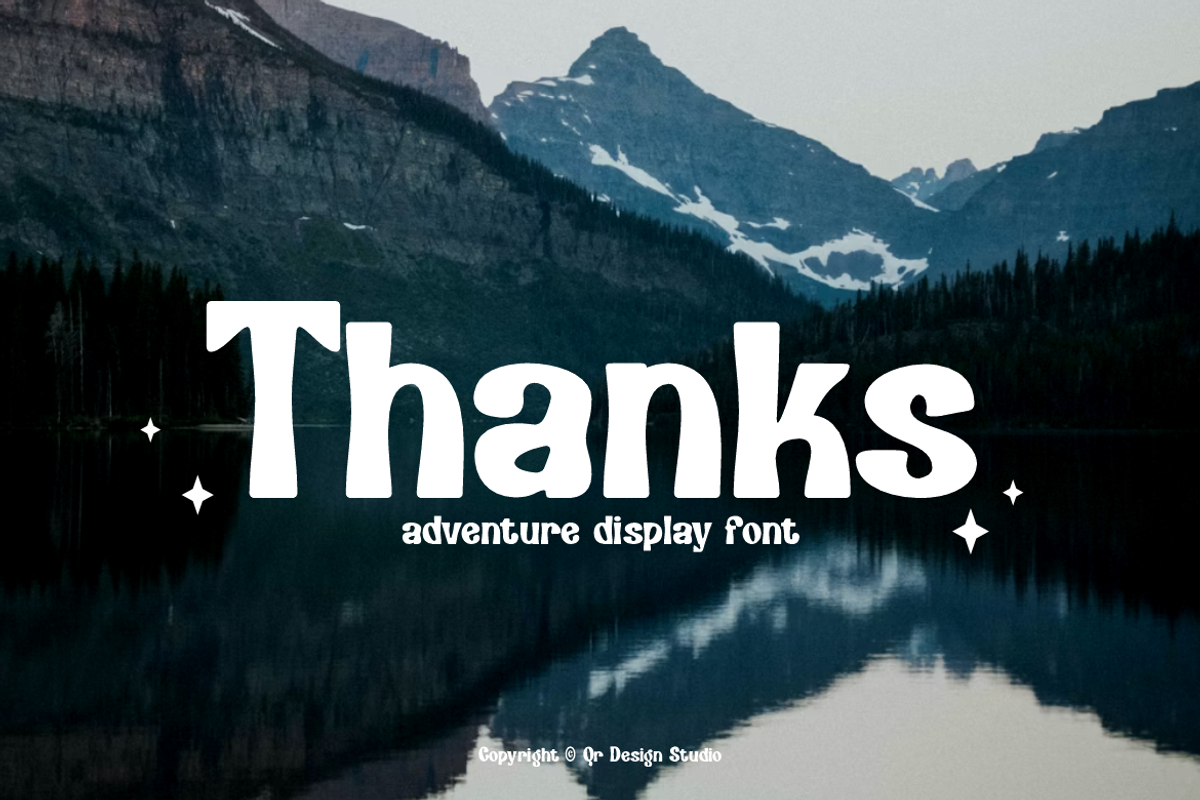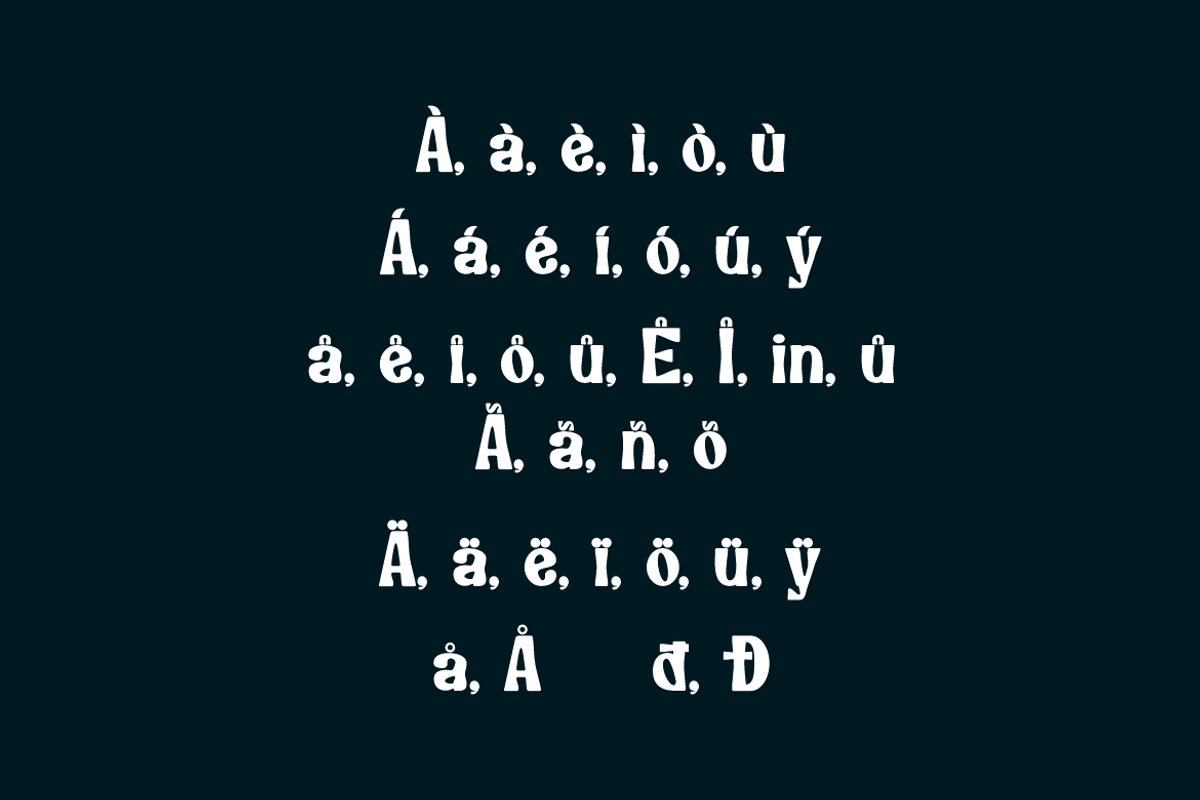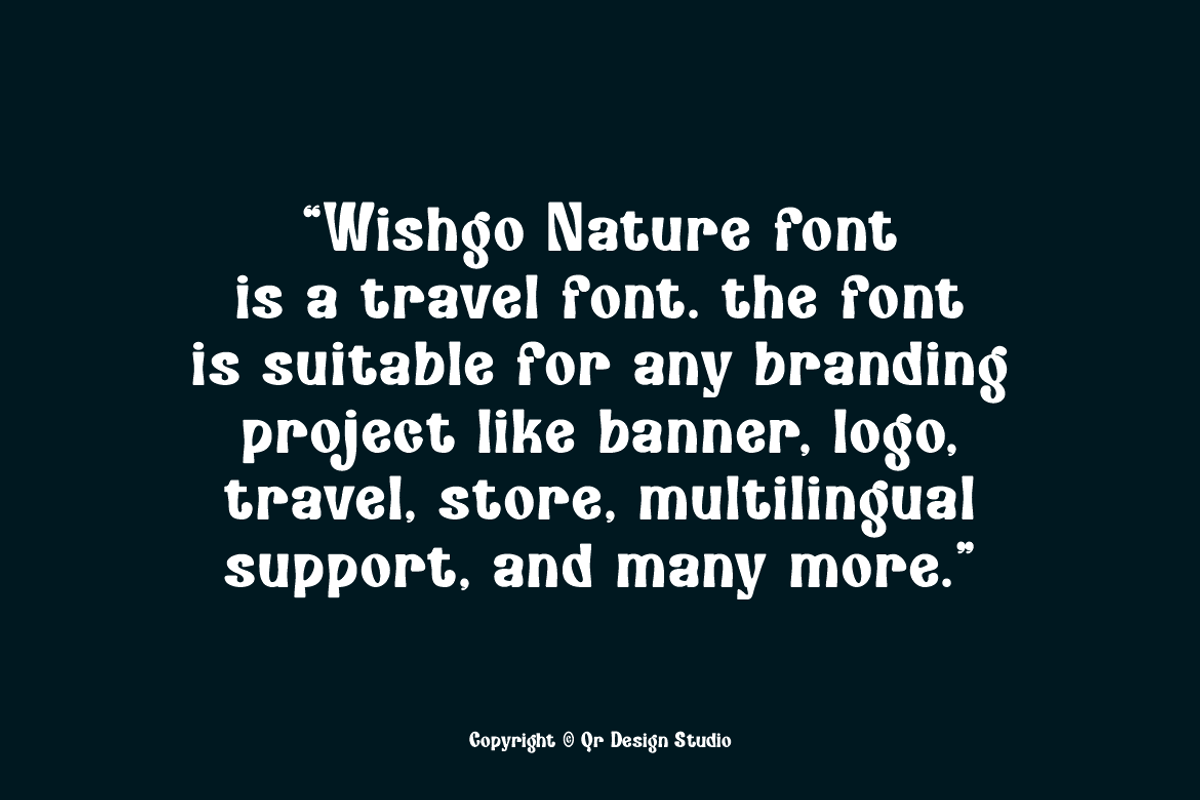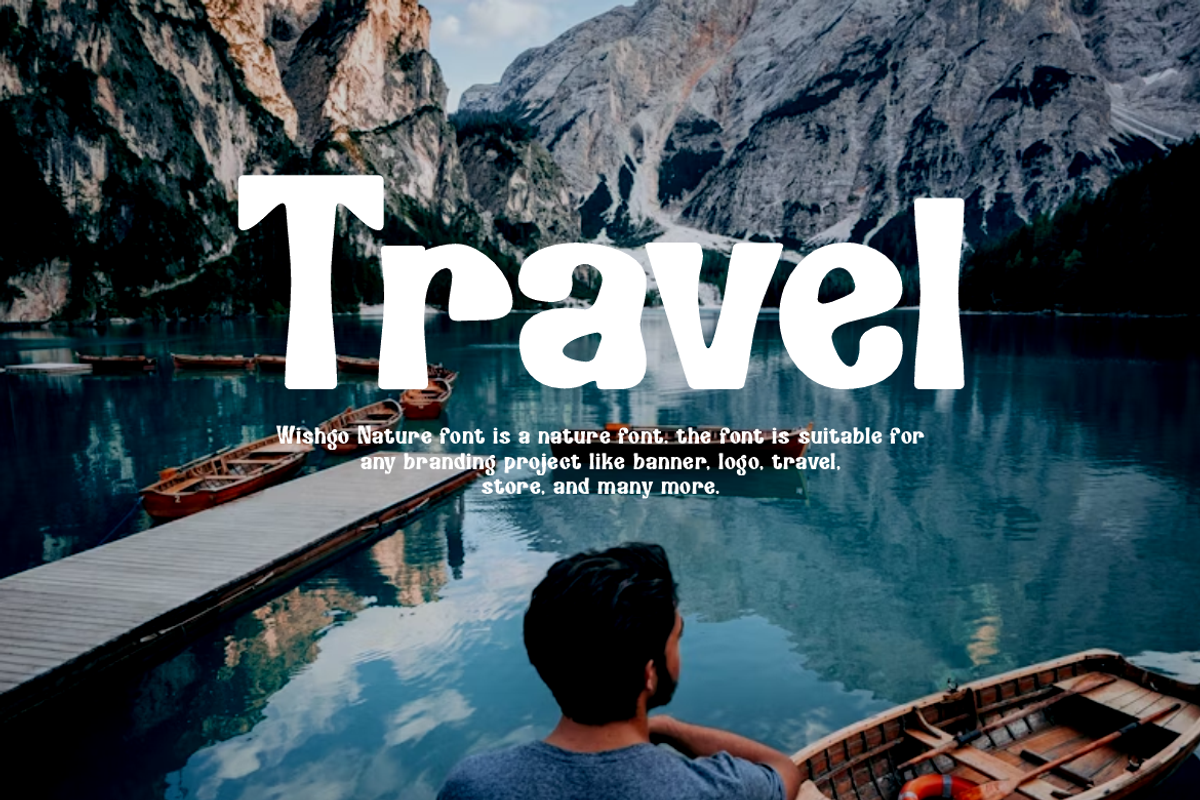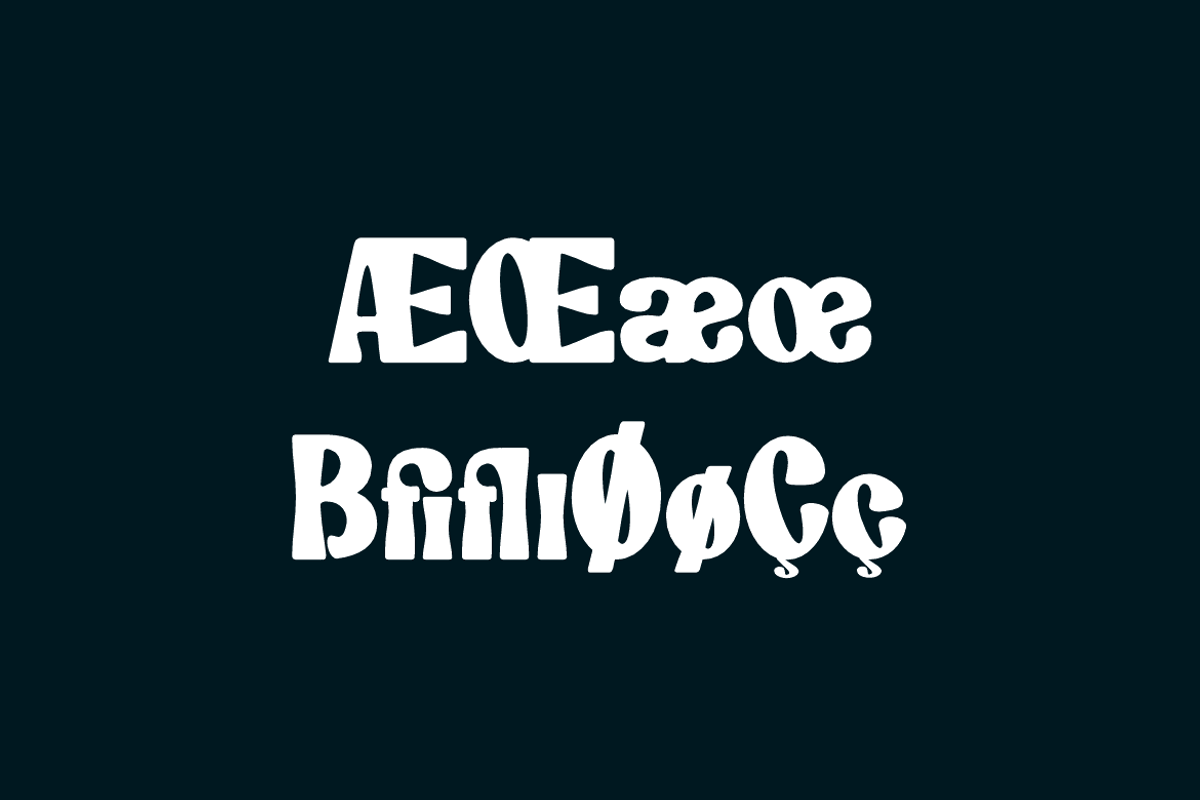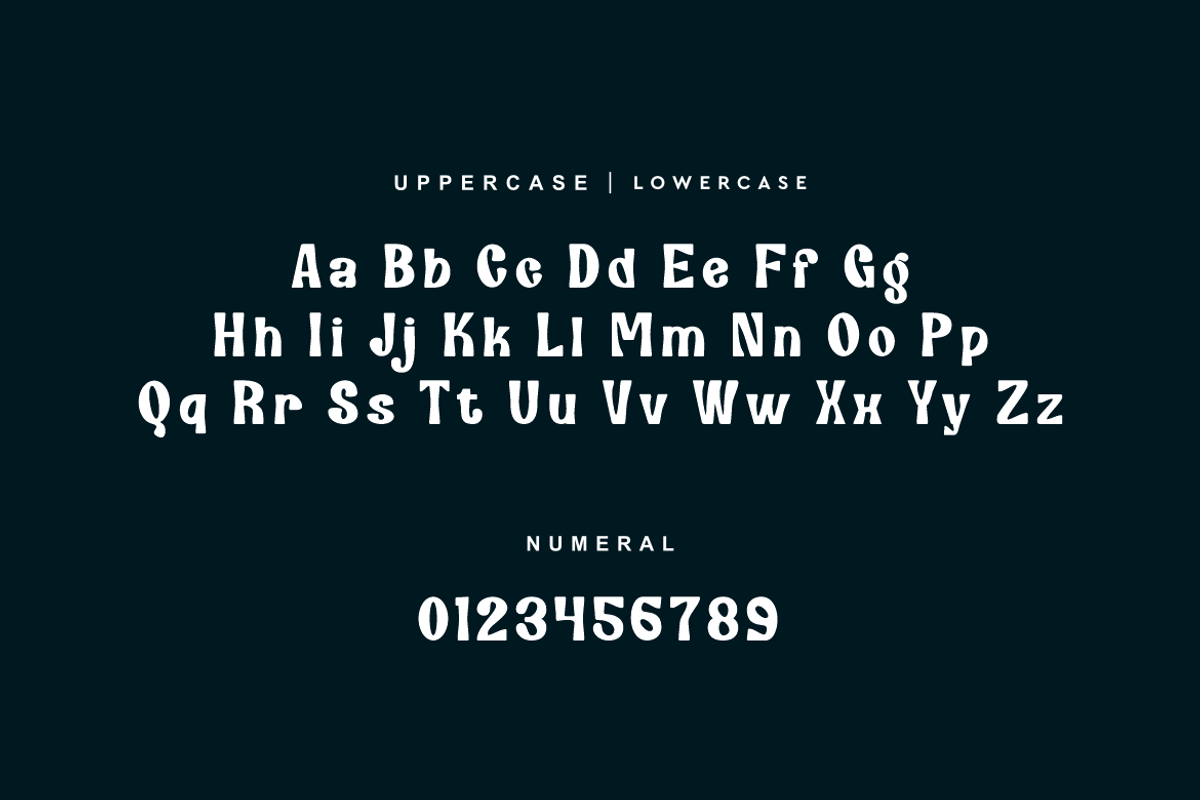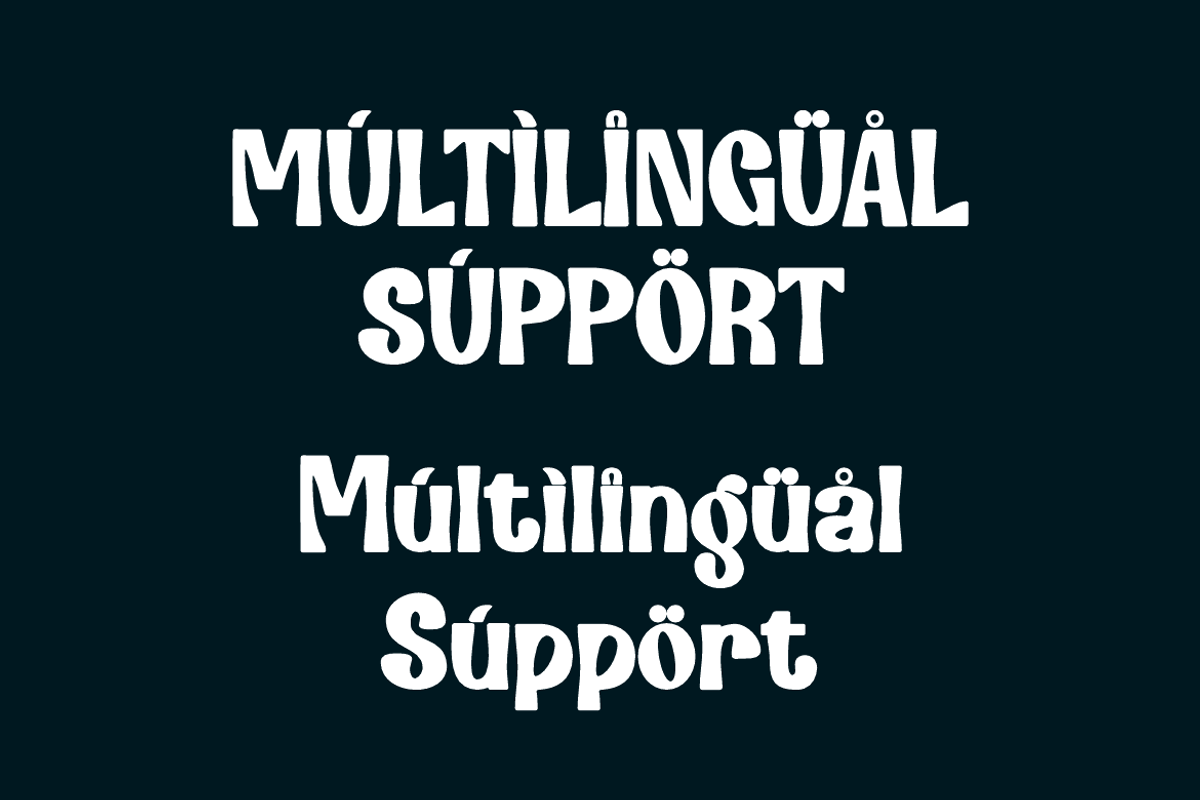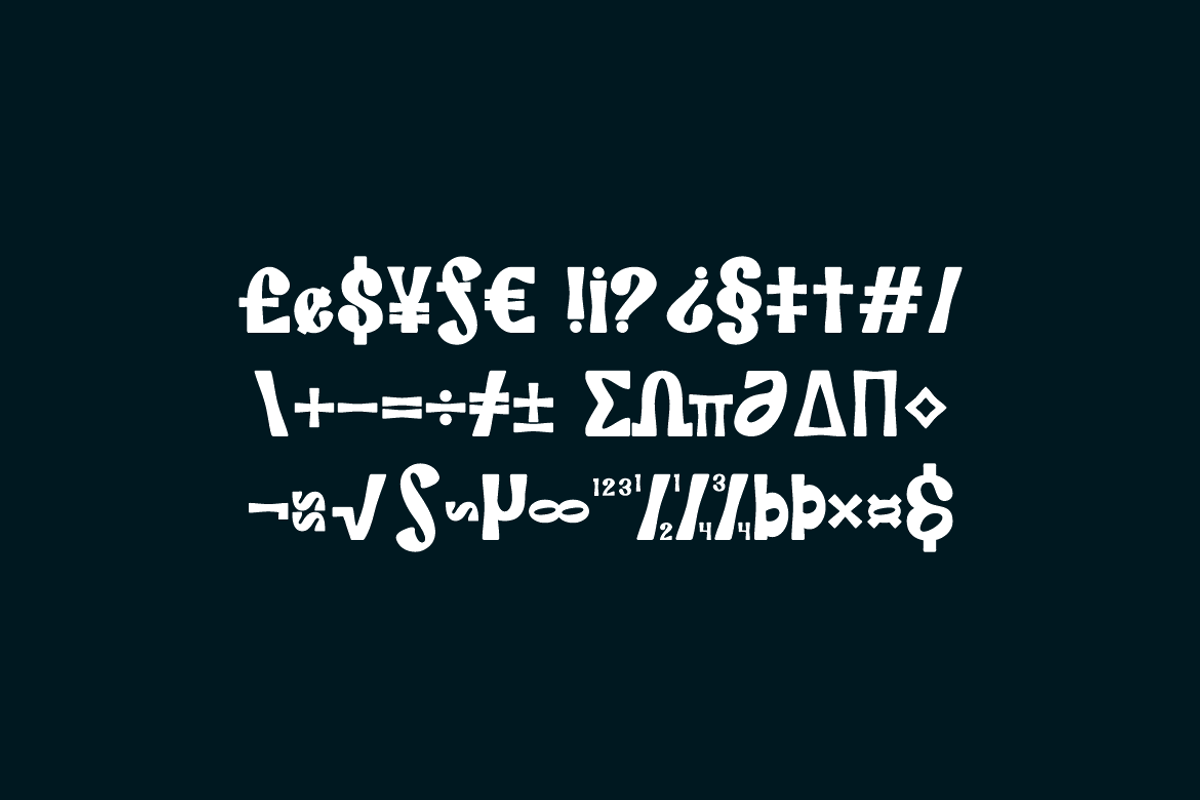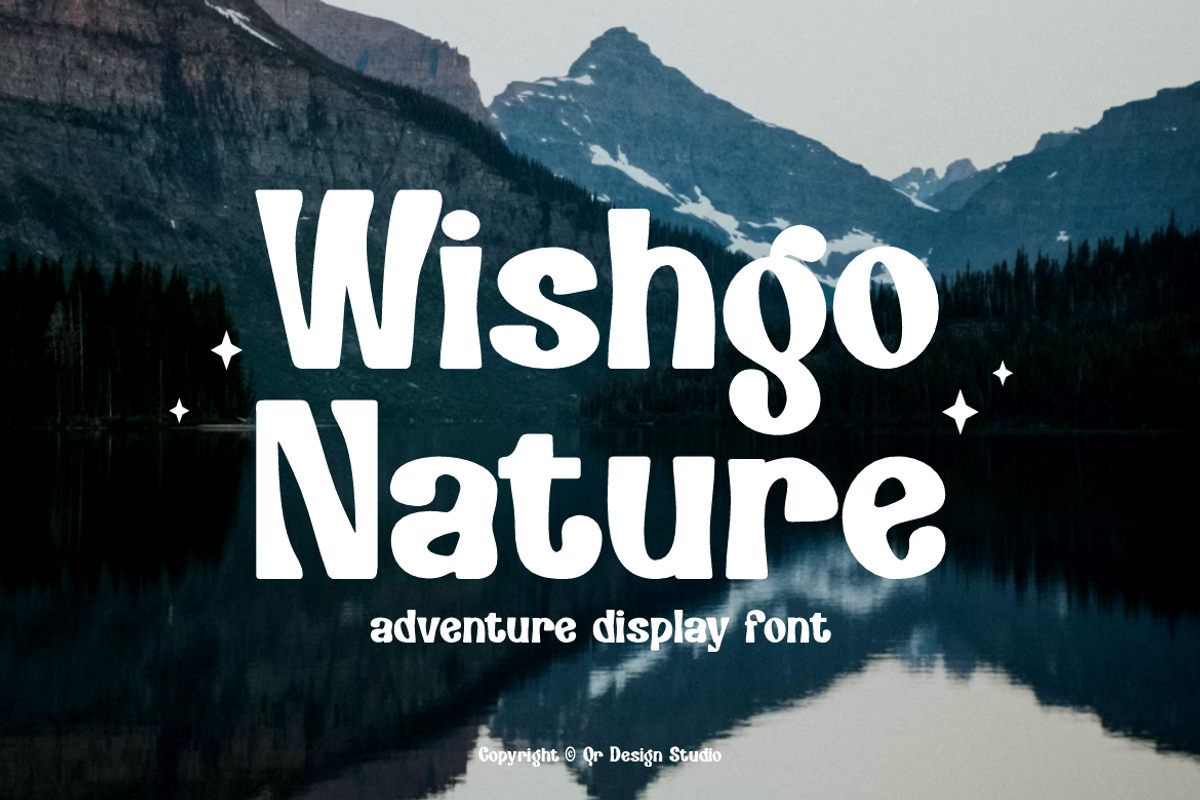
Wishgo Nature - Travel Font
Wishgo Nature Font is a bold and authentic display font. The font is suitable for any branding project like poster, logo, sport, and many more. Outstanding in a wide range of contexts.